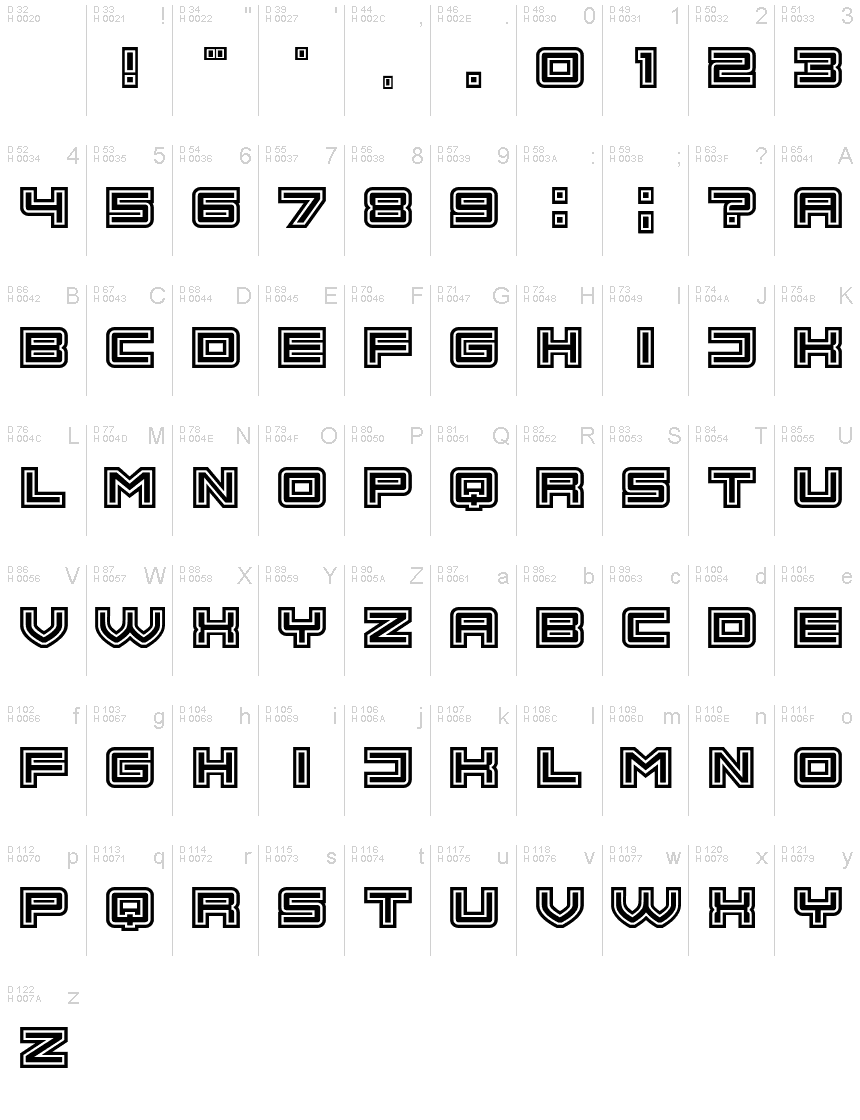
Trust Regular
Trust, a bold and wide techno display font designed by Vladimir Nikolic, is perfect for any project requiring an eye-catching and modern look. Its distinctive style makes it ideal for logos, posters, headlines, and other creative projects.